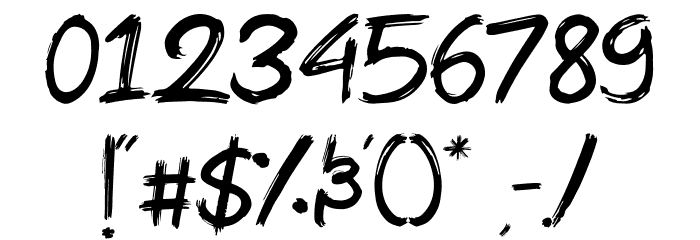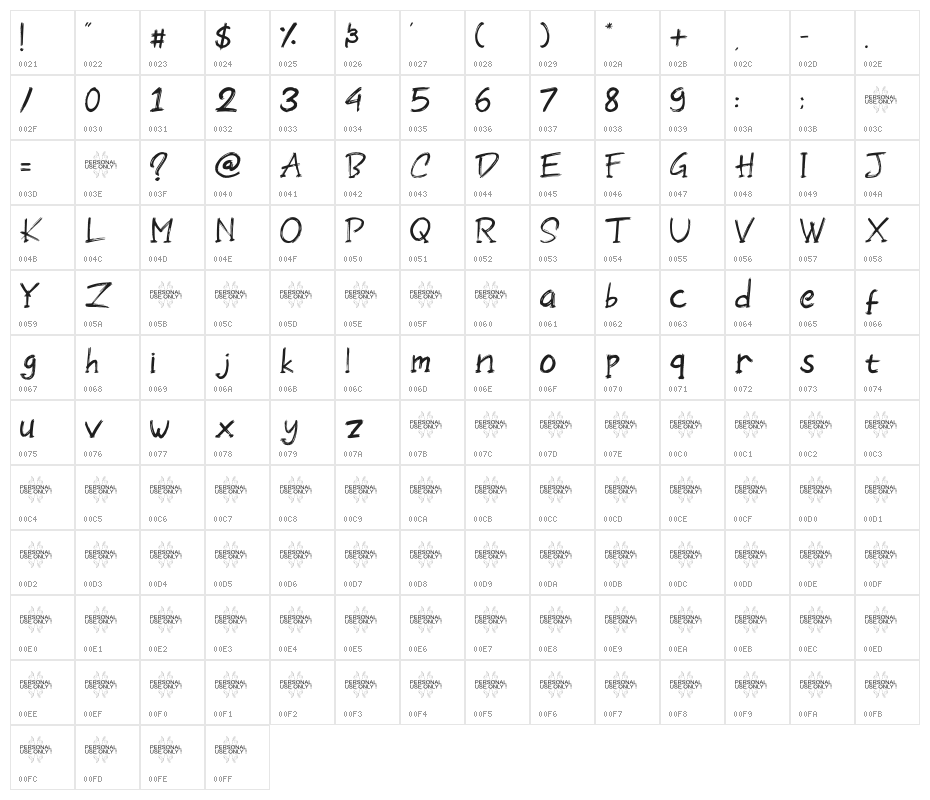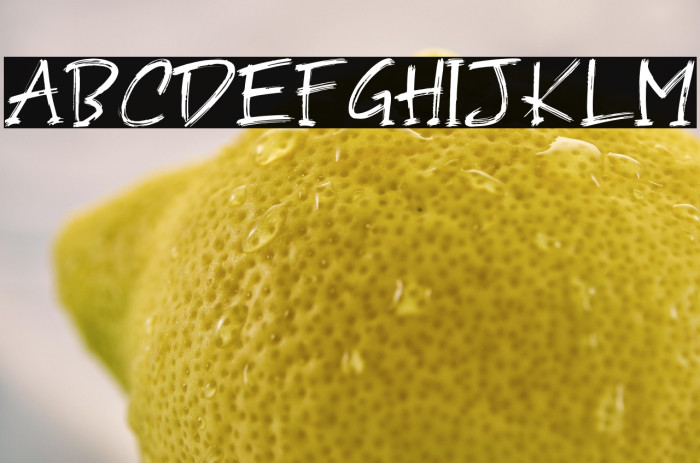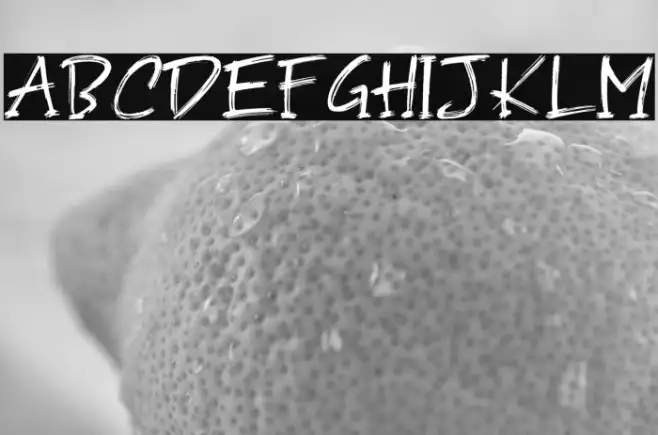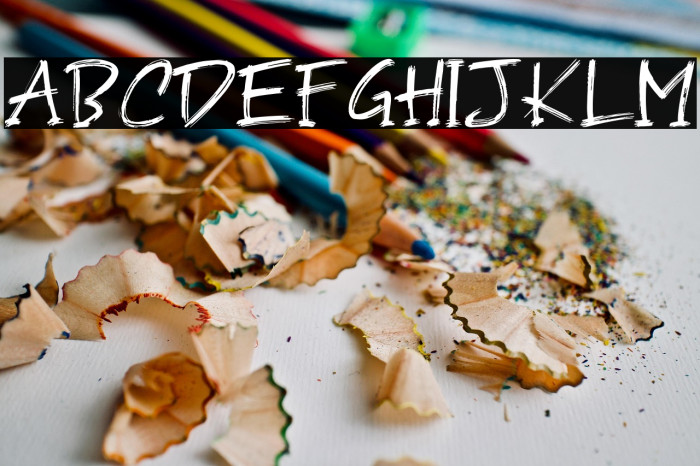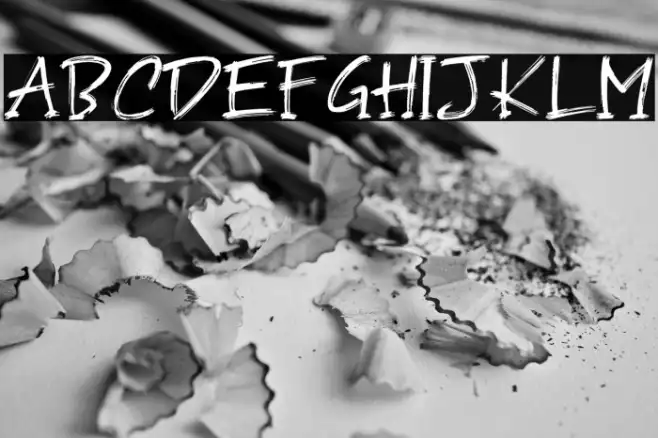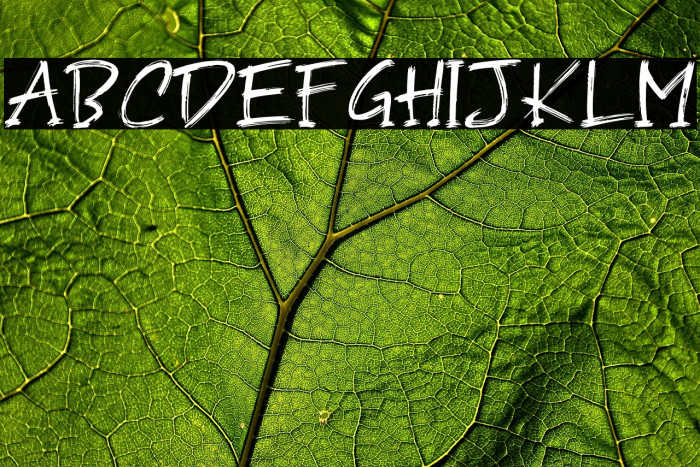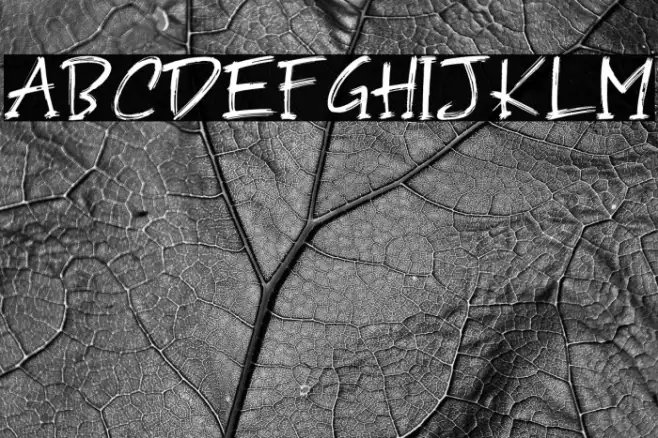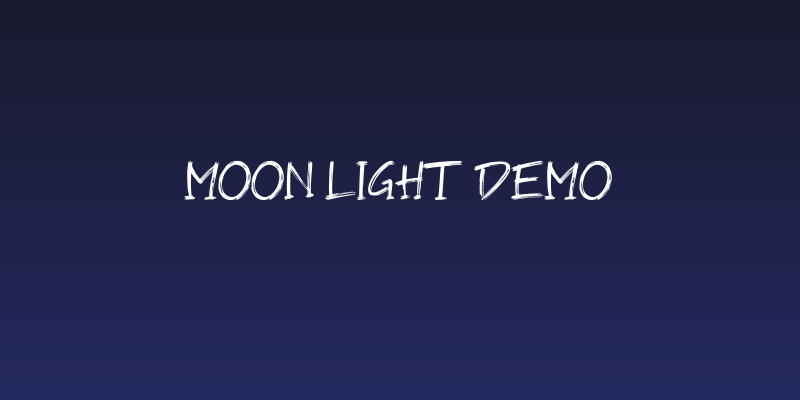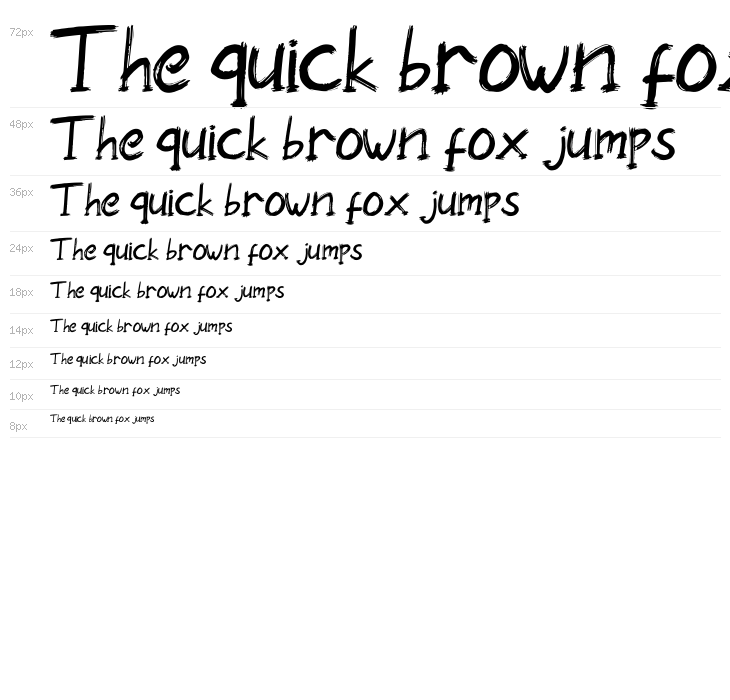
Moon Light Demo Font
Moon Light Demo Description
This font features a dynamic and energetic style, characterized by its brush-like strokes that give it a hand-drawn appearance. The letters are slightly irregular, adding a sense of movement and spontaneity. The uppercase and lowercase letters maintain a consistent style, with a playful and artistic flair. The numbers and special characters follow the same design principles, making the font versatile for various creative applications. Its unique style makes it stand out, perfect for projects that require a bold and expressive typeface.
| Proposed Projects | Ideal for posters, album covers, branding, and creative designs that need a bold, artistic touch. |